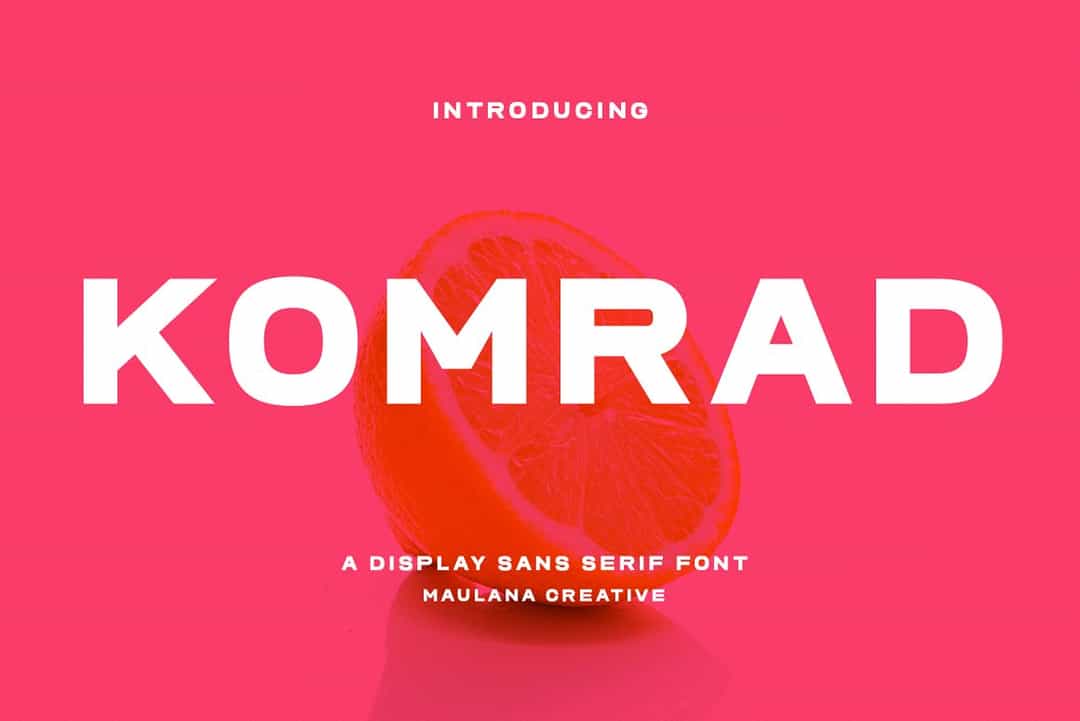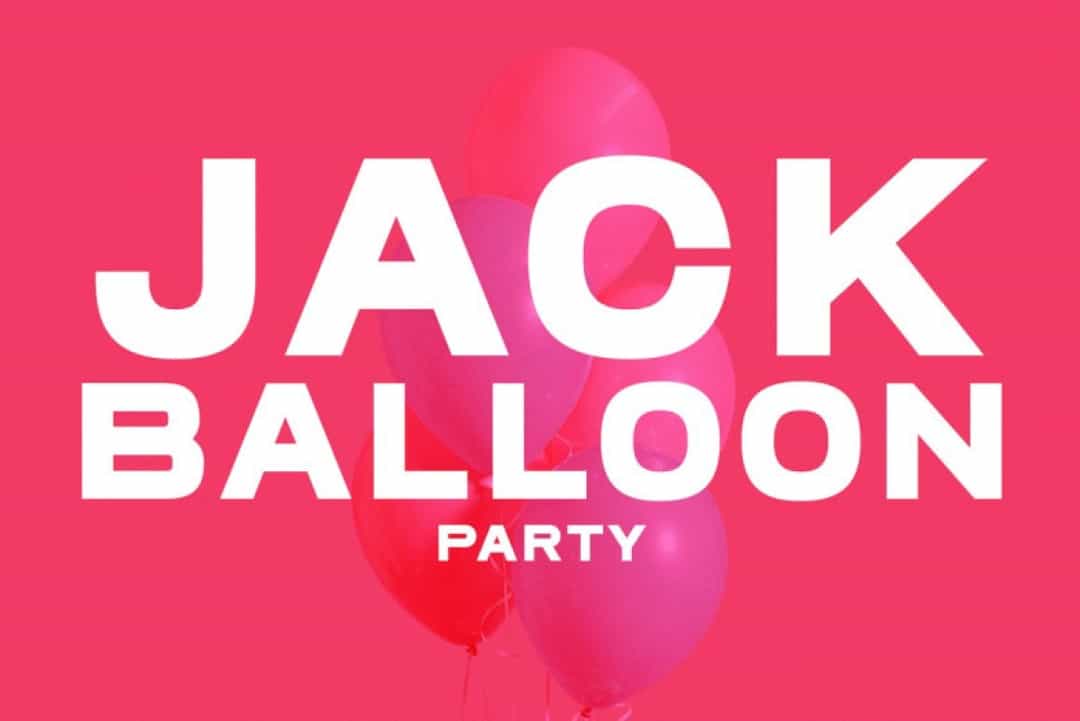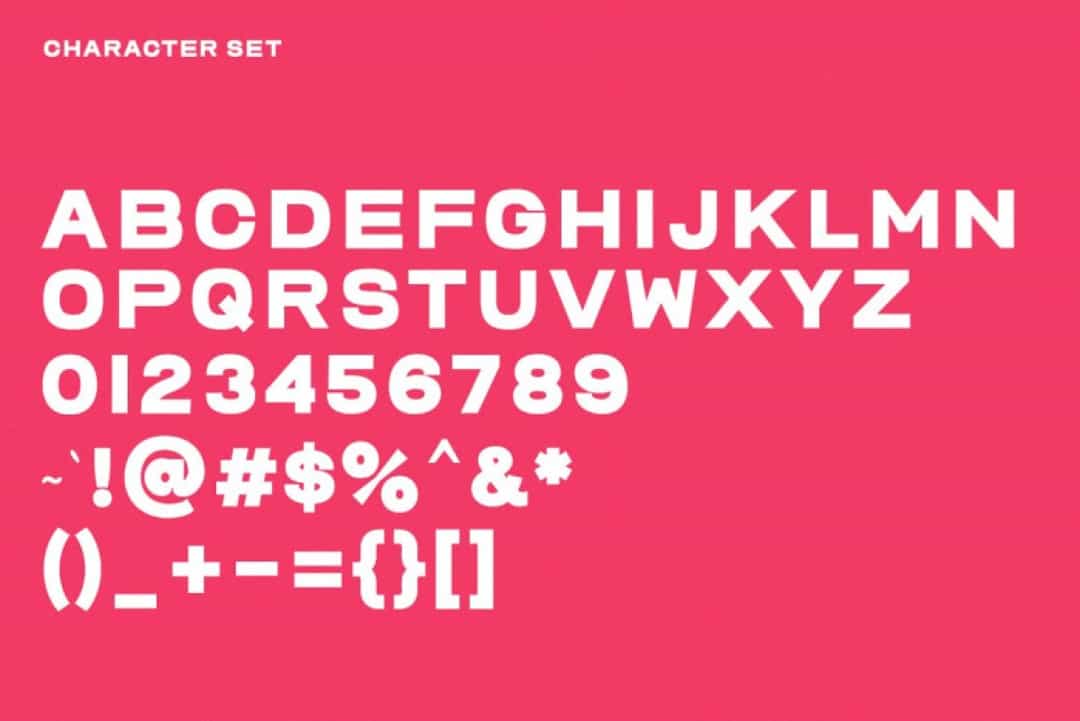
Komrad font is an all caps contemporary sans serif font with an all caps contemporary sans serif style and semi bold stroke that creates playful character with its semi bold stroke, playful character, ligatures and alternative fonts for added imagination and multilingual support (over 100 languages supported).